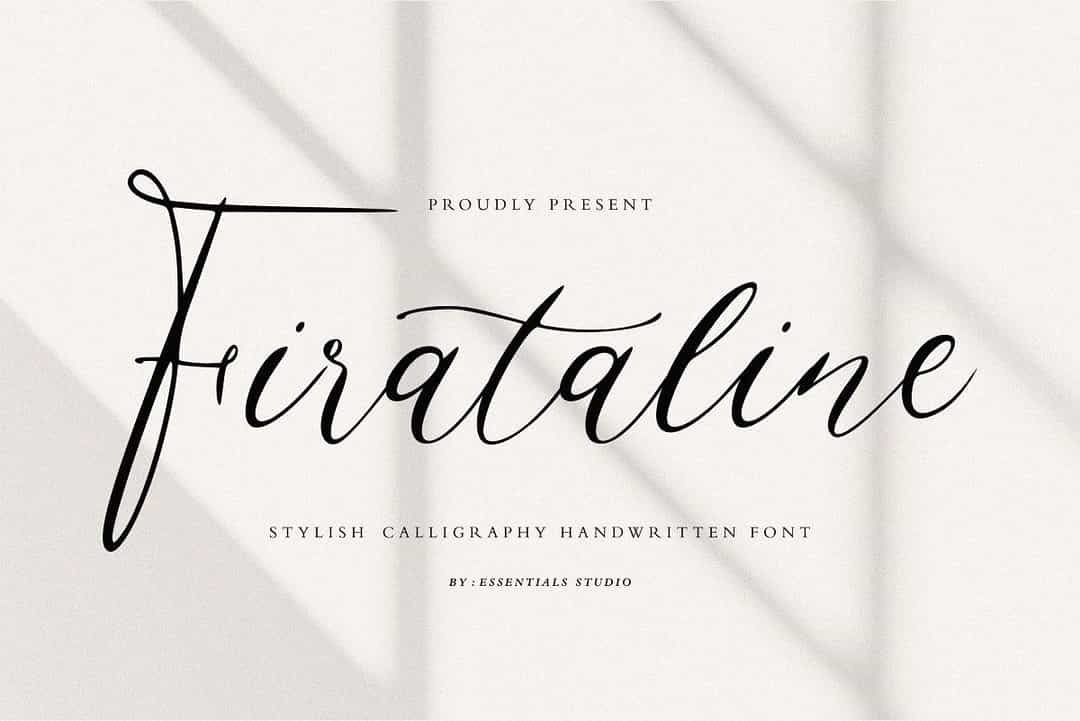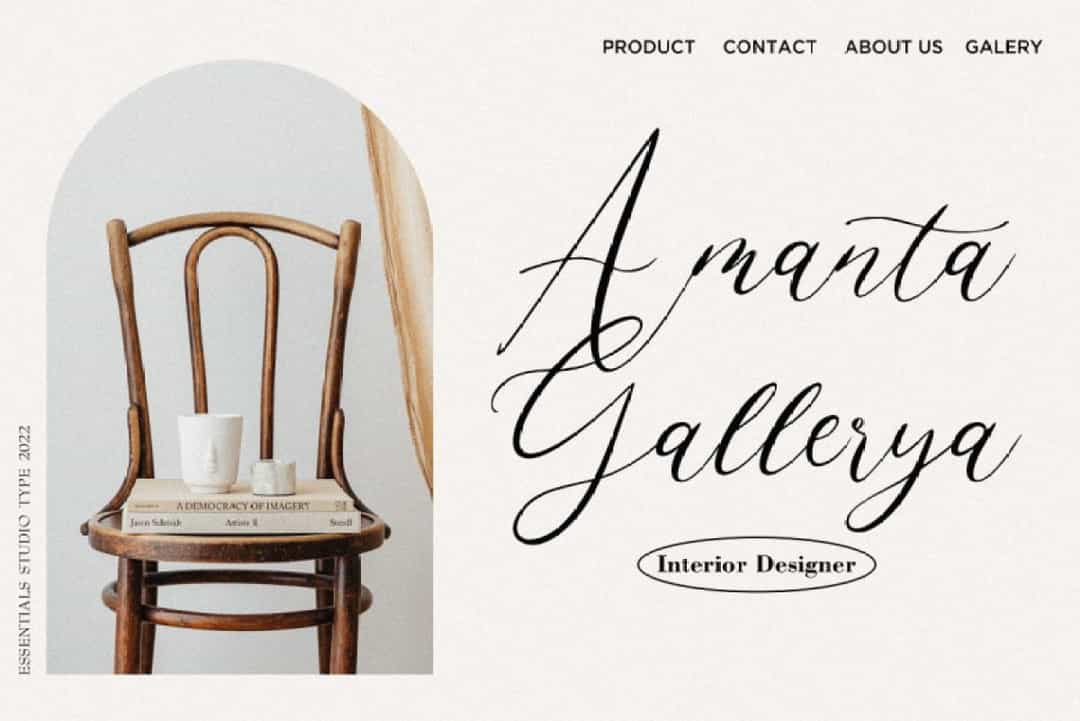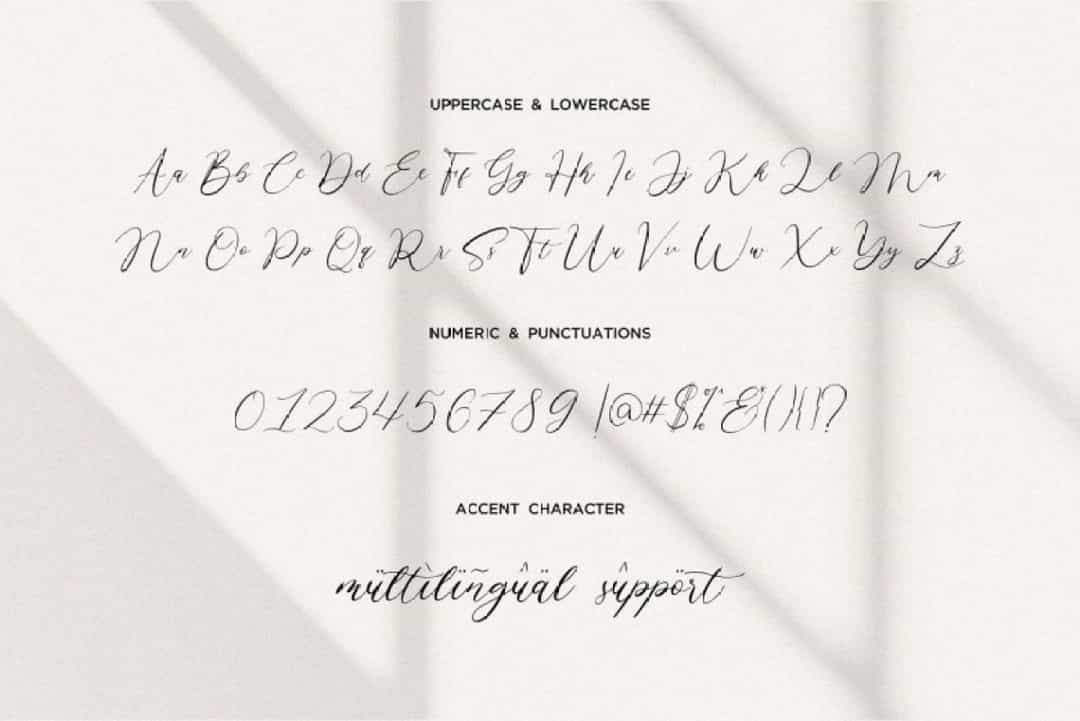
Firataline is an elegant handwritten font featuring uppercase, lowercase, numeric and symbols. Perfect for branding purposes or conveying words against an image background – Firataline will add style and class.